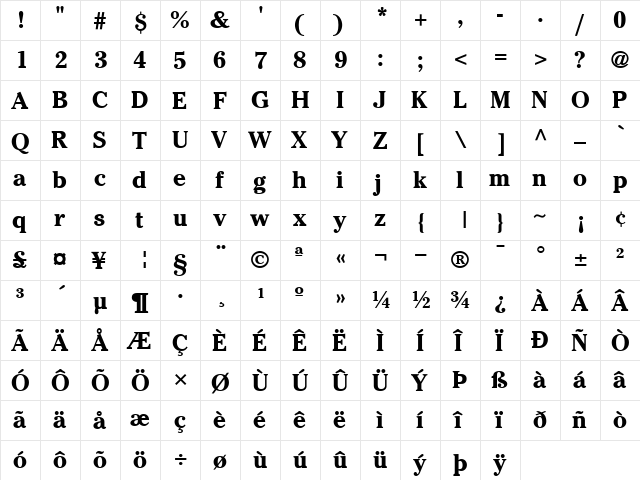
ITCCheltenham Bold
Design Context for ITCCheltenham Typeface
ITCCheltenham takes a measured approach to typography — its balanced proportions and neutral character make it a reliable workhorse for both digital and print work. The heavy weight commands attention and anchors typographic hierarchies.